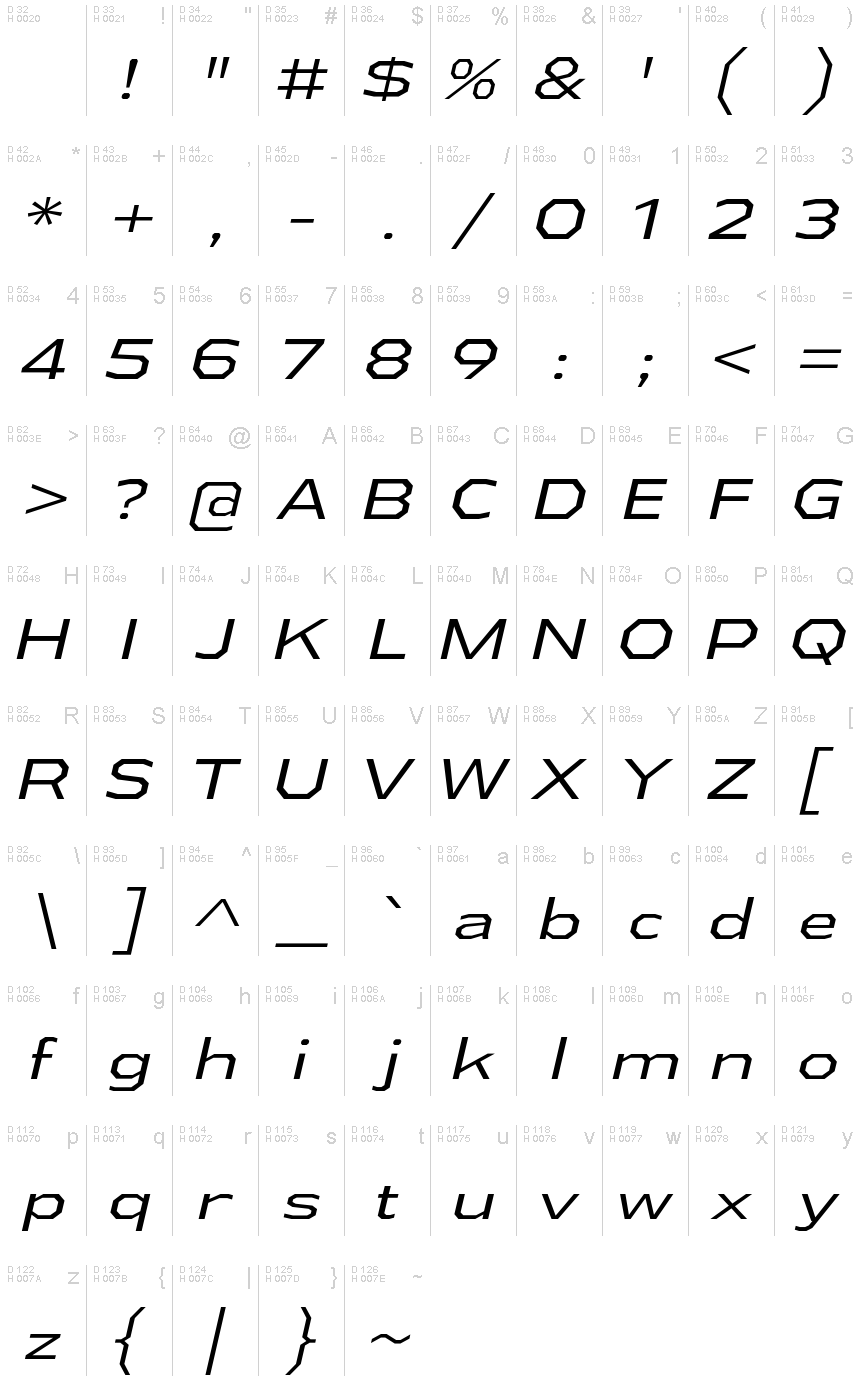
Athabasca, a captivating sans-serif font from Typodermic Fonts, commands attention with its angular precision and distinctive aesthetic. This expansive typeface exudes a sense of modern sophistication, its sharp edges and clean lines evoking a bold, assertive presence. The automatic substitution of a serifed "I" when followed by a lowercase "l" enhances legibility, while the availability of old-style and tabular numerals adds versatility for a range of design applications.
Athabasca's versatility shines through its six weights and three widths, including italics, allowing designers to craft a harmonious visual identity across diverse projects. Its angular forms and expansive character make Athabasca an excellent choice for attention-grabbing headings, impactful branding, and contemporary editorial design. Whether in print or digital media, Athabasca's unique personality will lend a distinctive edge to any creative endeavor.